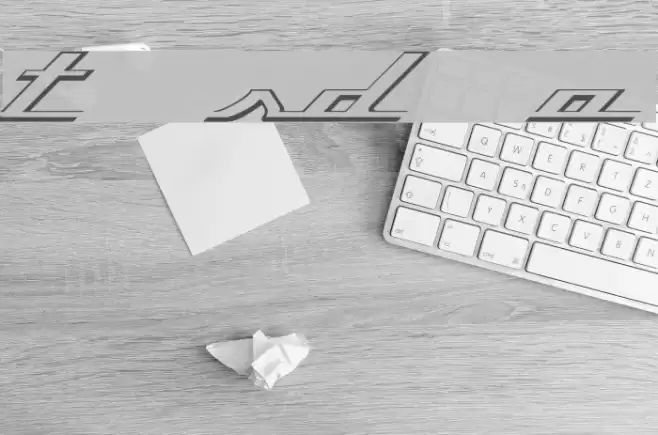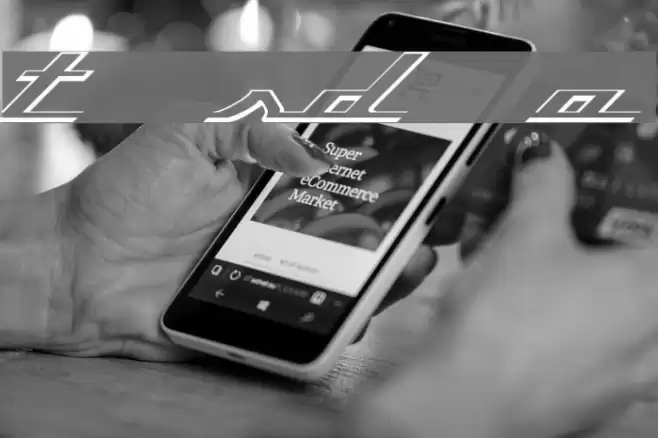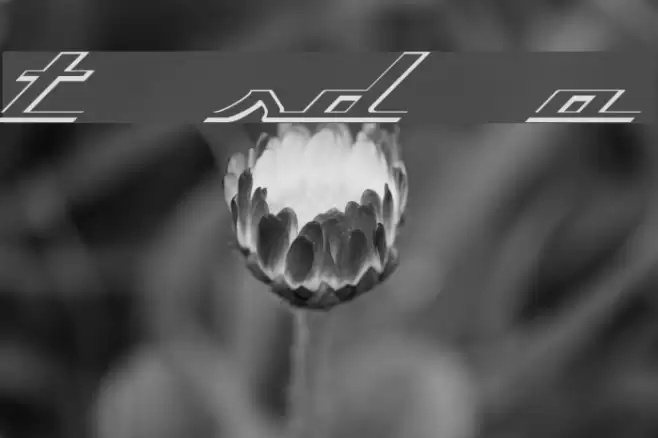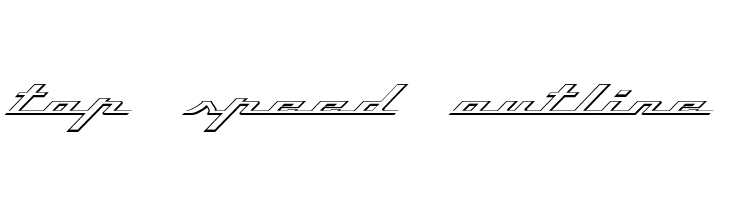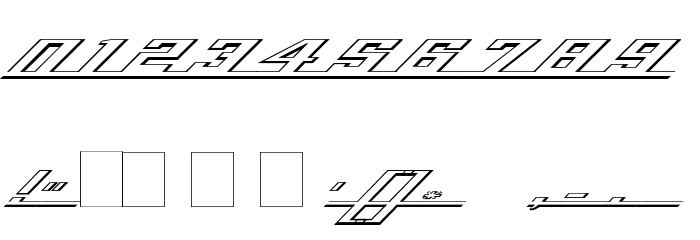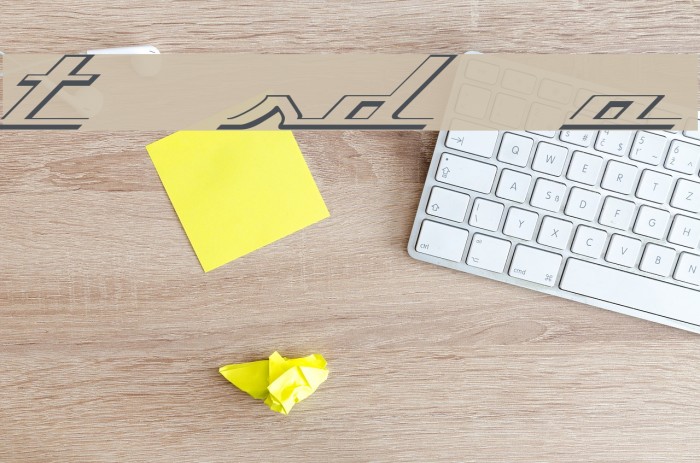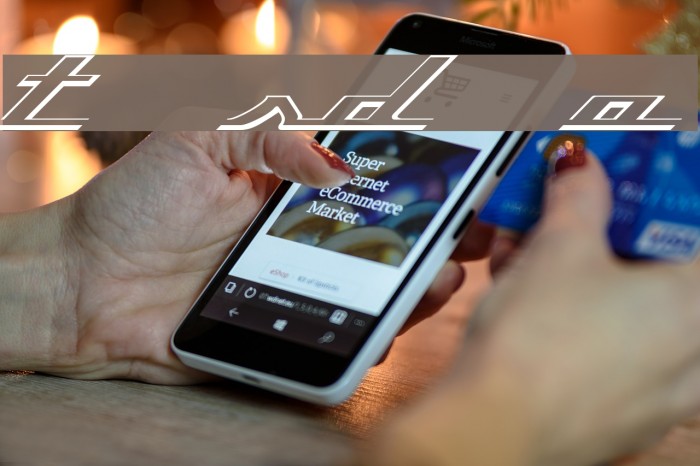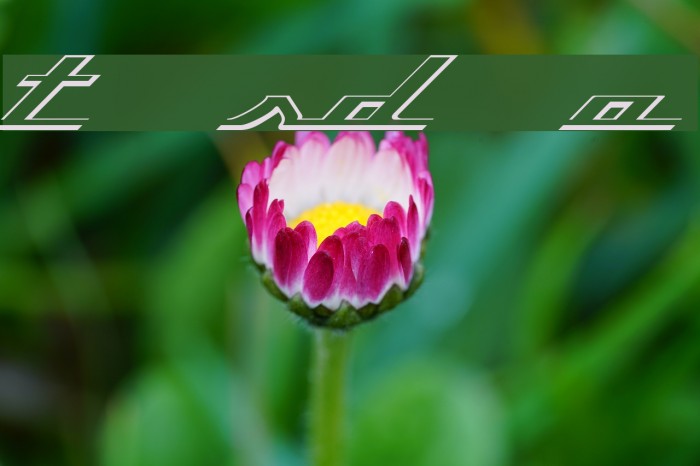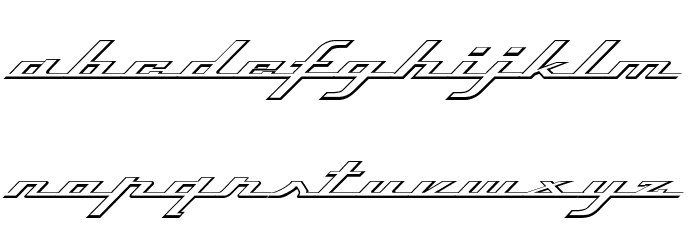
Top Speed Outline Font
Top Speed Outline Description
This font features a dynamic, outline style that conveys a sense of speed and modernity. The characters are designed with sharp, angular lines and a consistent stroke width, creating a sleek and futuristic appearance. The uppercase and lowercase letters maintain a uniform height, enhancing readability while preserving the font's unique aesthetic. The numbers and special characters are crafted with the same attention to detail, ensuring a cohesive look across all elements. This font is ideal for projects that require a bold, eye-catching typeface with a contemporary edge.
A dynamic, outline font with sharp, angular lines and a modern aesthetic from Retro fonts.
- Proposed Projects: Ideal for automotive branding, sports team logos, futuristic designs, and tech-related projects.
- Use Case: Logos, Headlines, Branding